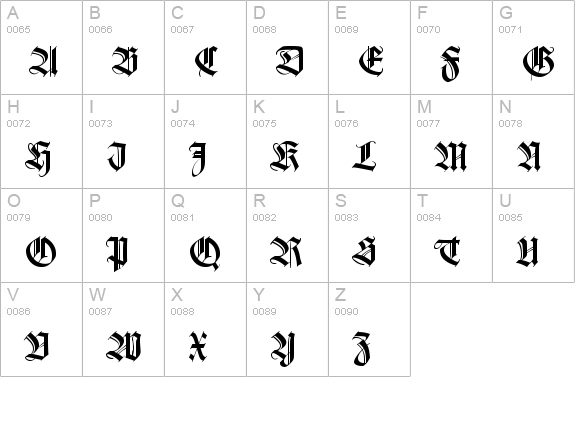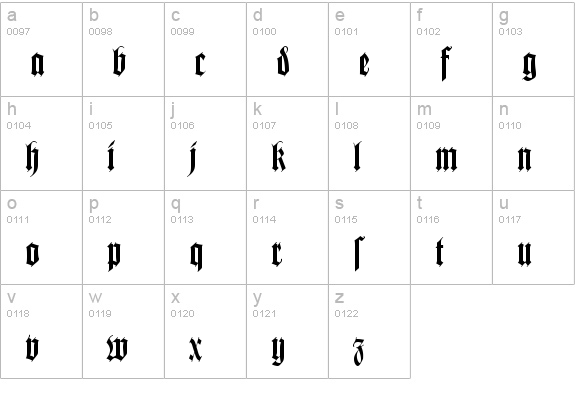
Wilhelm Klingspor Gotisch Dfr Font Details
Wilhelm Klingspor Gotisch Dfr font is a stunning display typeface that exudes an air of vintage elegance and Gothic grandeur. With its intricate and ornate letterforms, this font captures the essence of traditional German blackletter typography. Designed by the renowned typographer Wilhelm Klingspor, this typeface pays homage to the rich history and craftsmanship of Gothic calligraphy. Each meticulously crafted letter showcases the mastery of lettering art, with its sharp angles, intricate details, and distinctive strokes. Wilhelm Klingspor Gotisch Dfr font is perfect for creating a sense of old-world charm in your design projects. Whether you're designing invitations, posters, book covers, or logos, this font will add a touch of sophistication and uniqueness to your work. One of the most remarkable features of this font is that it is free! Yes, you read that right. Wilhelm Klingspor Gotisch Dfr font is freely available to download at FontsMarket.com. Now, you can effortlessly access this exquisite typeface and elevate your designs without any cost. So, if you're looking for a font that combines timeless elegance with a touch of historical allure, look no further than Wilhelm Klingspor Gotisch Dfr font. Download it for free at FontsMarket.com and let your creativity soar to new heights.